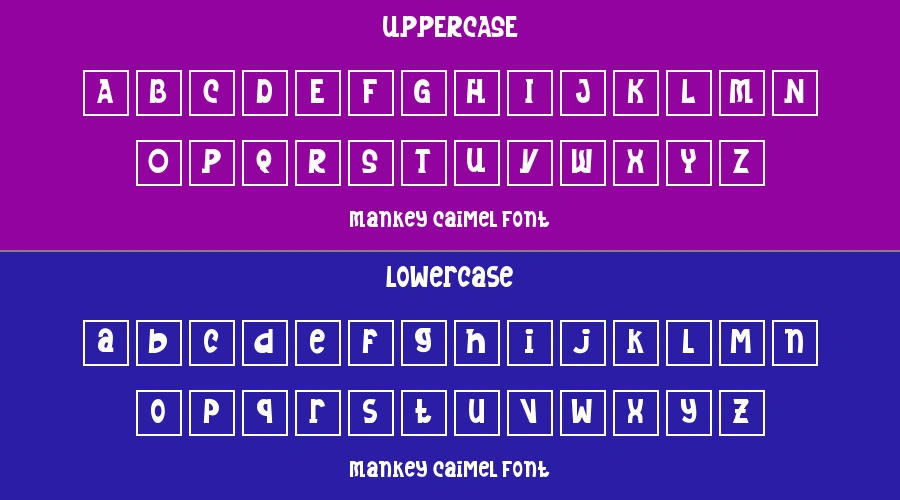
About Mankey Caimel Font
Designed with precision, Mankey Caimel Font merges calligraphic influence with visual appeal in every character. This versatility makes it particularly effective for corporate identity, where clarity and practical utility directly impact communication quality. Each letterform demonstrates meticulous craftsmanship.
Technical excellence shines through elements like concave curves and numerator/denominator, enhancing typographic versatility. In academic theses settings, Mankey Caimel Font proves its worth through superior versatility. The thoughtful execution of letterfit and technical tradition ensures professional results.